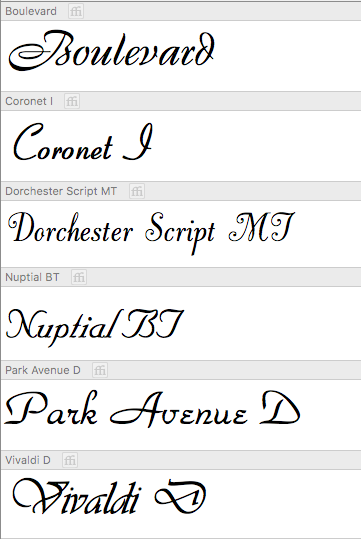
I hoping someone can help you find a font! I work with alot of sand blasting and everyone wants a script font, but script fonts always have super fine details.
So here is kinda what i am hoping to find. Most people want a font with a similar feel to English script, but that one does not work well small. Learning curve has great thickness and counters, but is to basic. Lobster is nice, but is a bit to “fun”.
I know this sounds odd, but i hope someone understands. I do sand blasting on awards. Any one have an idea?